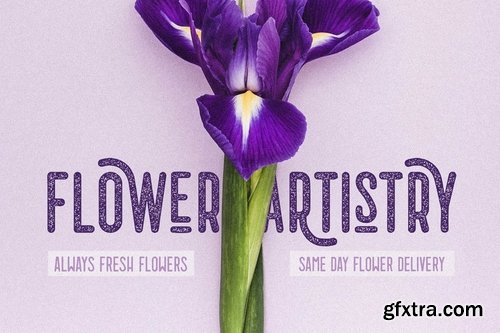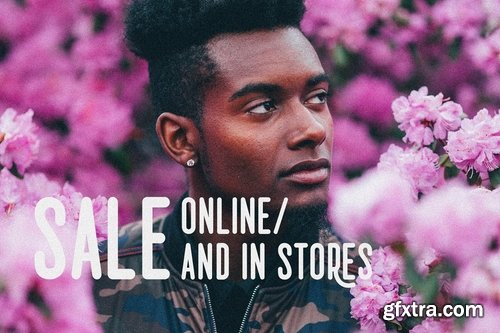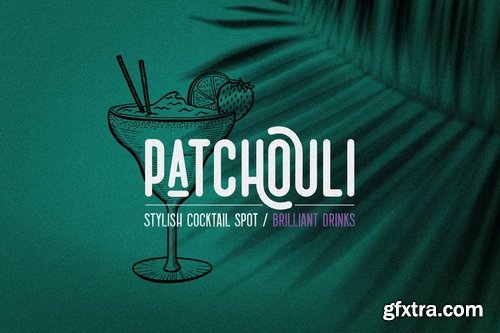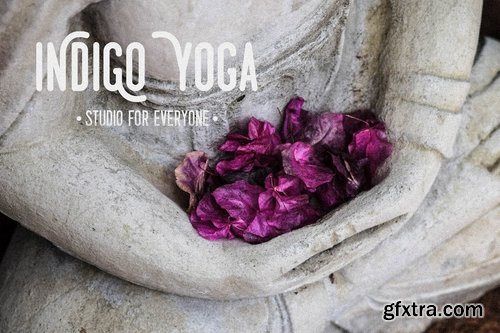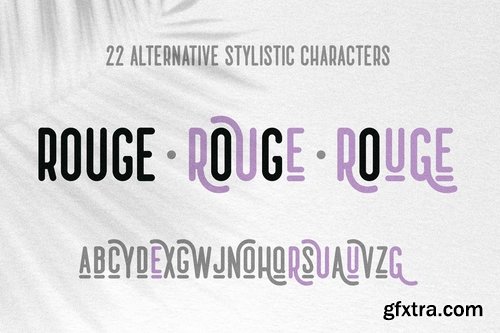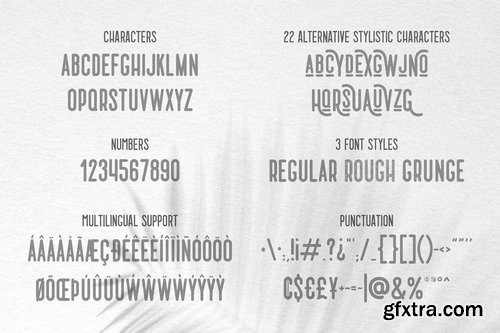
Mango Tango Font Collection - 3 Styles
Mango Tango - a font collection of regular, rough, grunge styles. Includes uppercase letters, punctuation, numbers, alternative special characters, multilingual support.